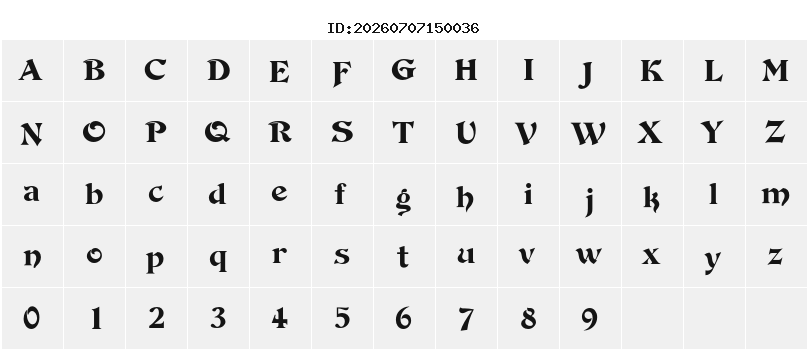
• Font Name: DeVinne LT Std
• Designer: Deberny et Peignot Design Studio
• Manufacturer: Linotype GmbH
• Description: DeVinne Ornamental is a display typeface from the famous Parisian typefoundry Deberny & Peignot, developed around 1900. Its style has become synonymous with the Art Noveau period, which was raging internationally when DeVinne Ornamental's letters were first drawn. The typeface is named after the renowned American printer Theodore Low DeVinne (1828-1914). Optimal uses for DeVinne Ornamental include headlines in magazines and newsletters.